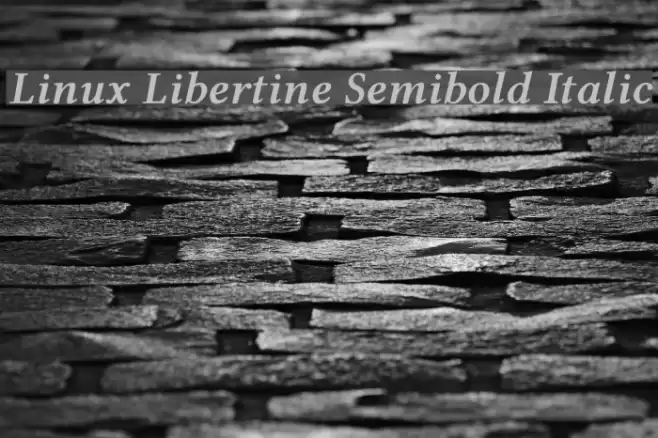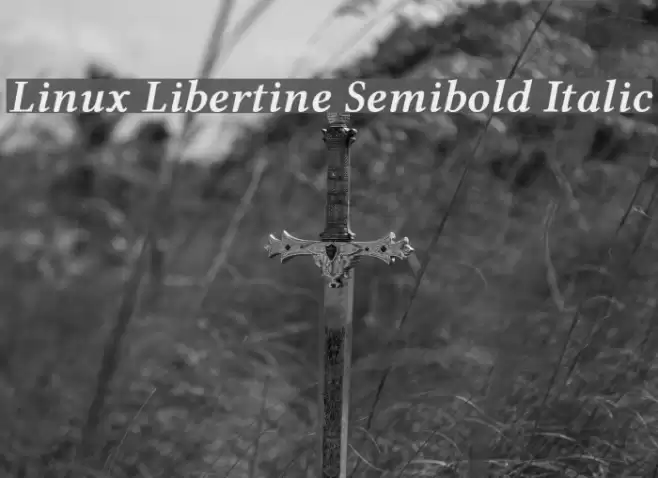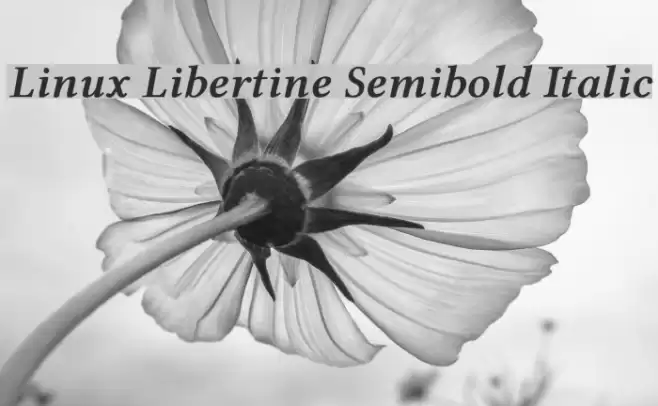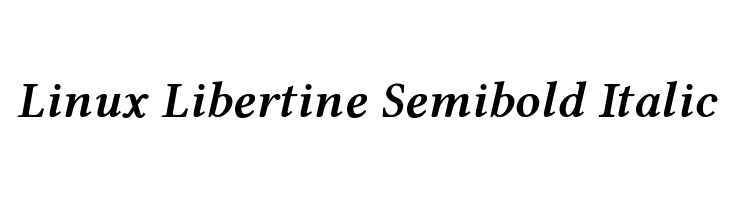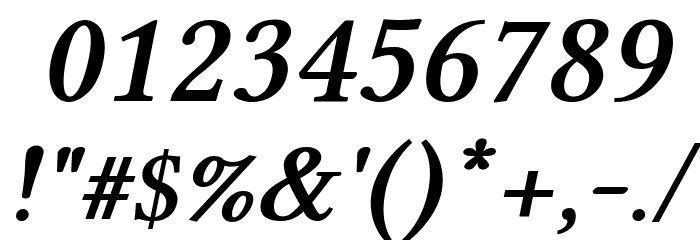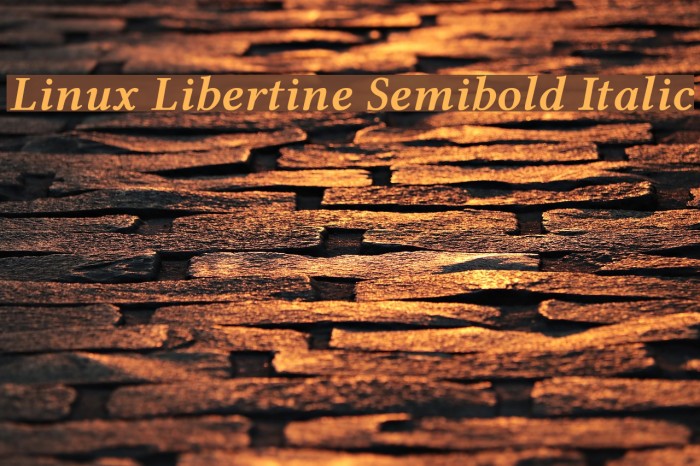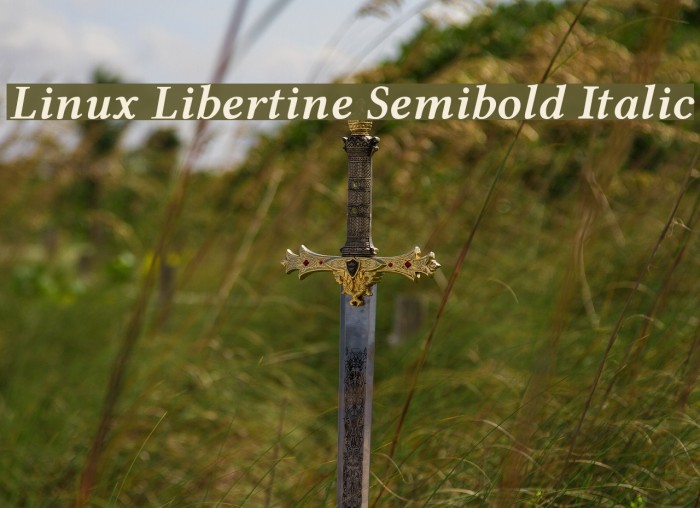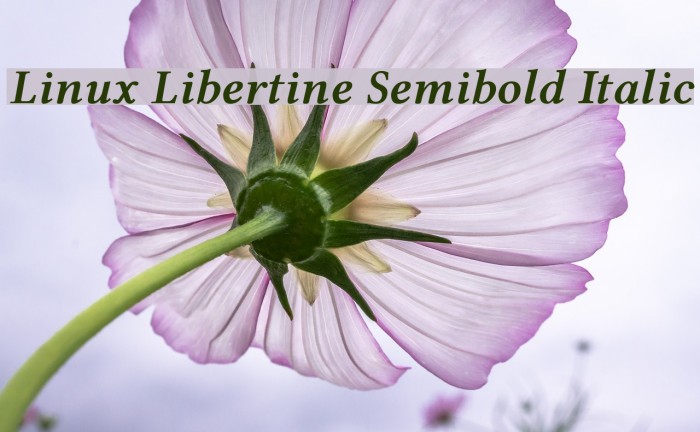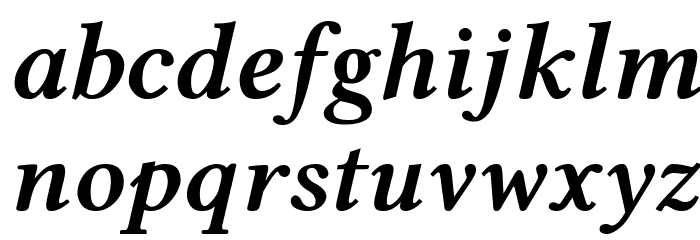
Linux Libertine Semibold Italic Font
Linux Libertine Semibold Italic Description
This typeface features a classic serif design with a semi-bold weight and italic style, offering a sophisticated and elegant appearance. The letters have a slight slant, enhancing the italic effect, while the serifs provide a traditional touch. The strokes are moderately thick, contributing to a medium contrast that balances readability with style. The overall design is reminiscent of classic literature and formal documents, making it suitable for a variety of professional and creative applications.
A classic serif typeface with semi-bold weight and italic style, offering elegance and readability from Uncategorized fonts.
- Proposed Projects: Ideal for book covers, formal invitations, academic publications, and branding materials that require a touch of sophistication.
- Overall Style: Classic